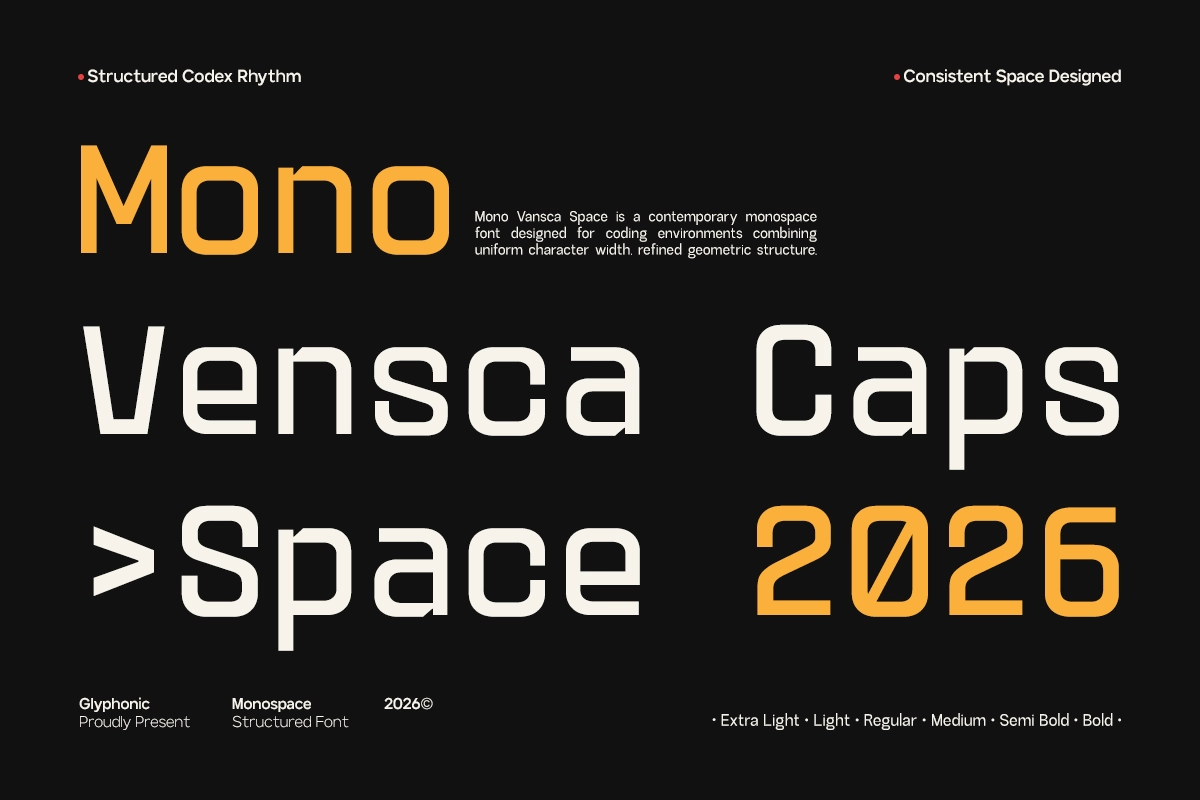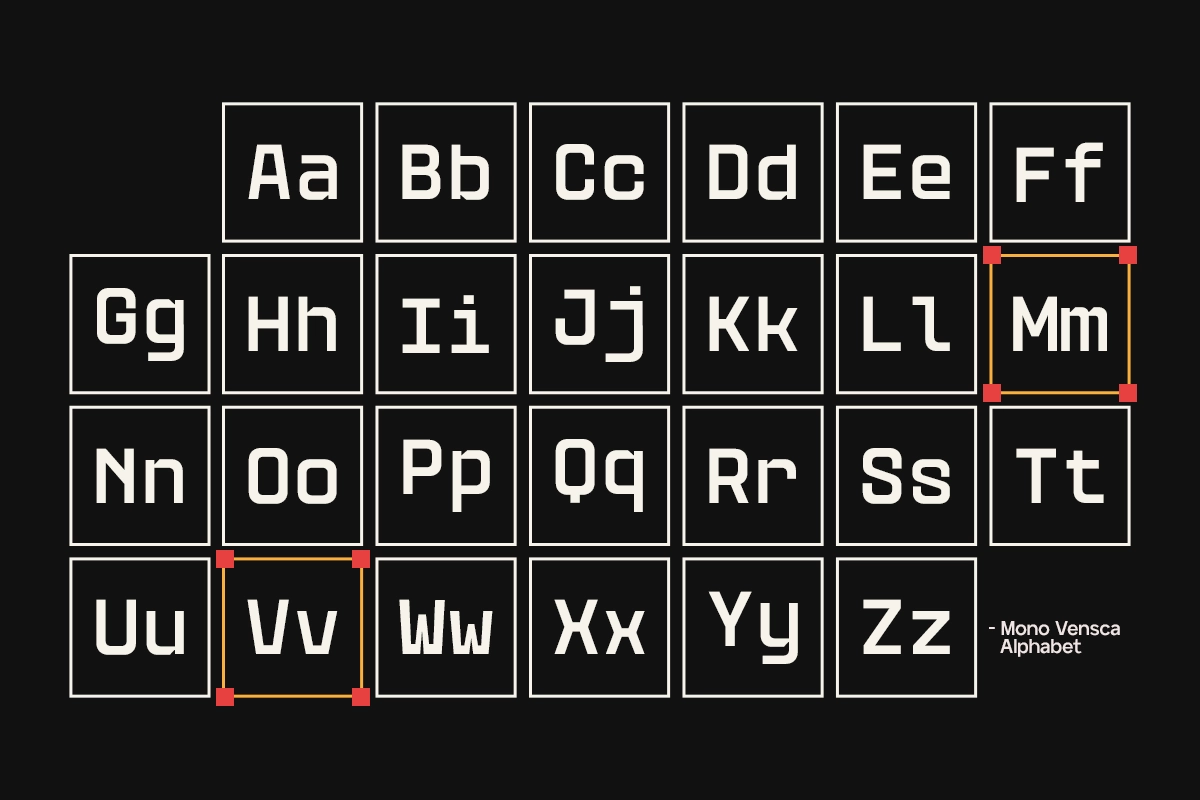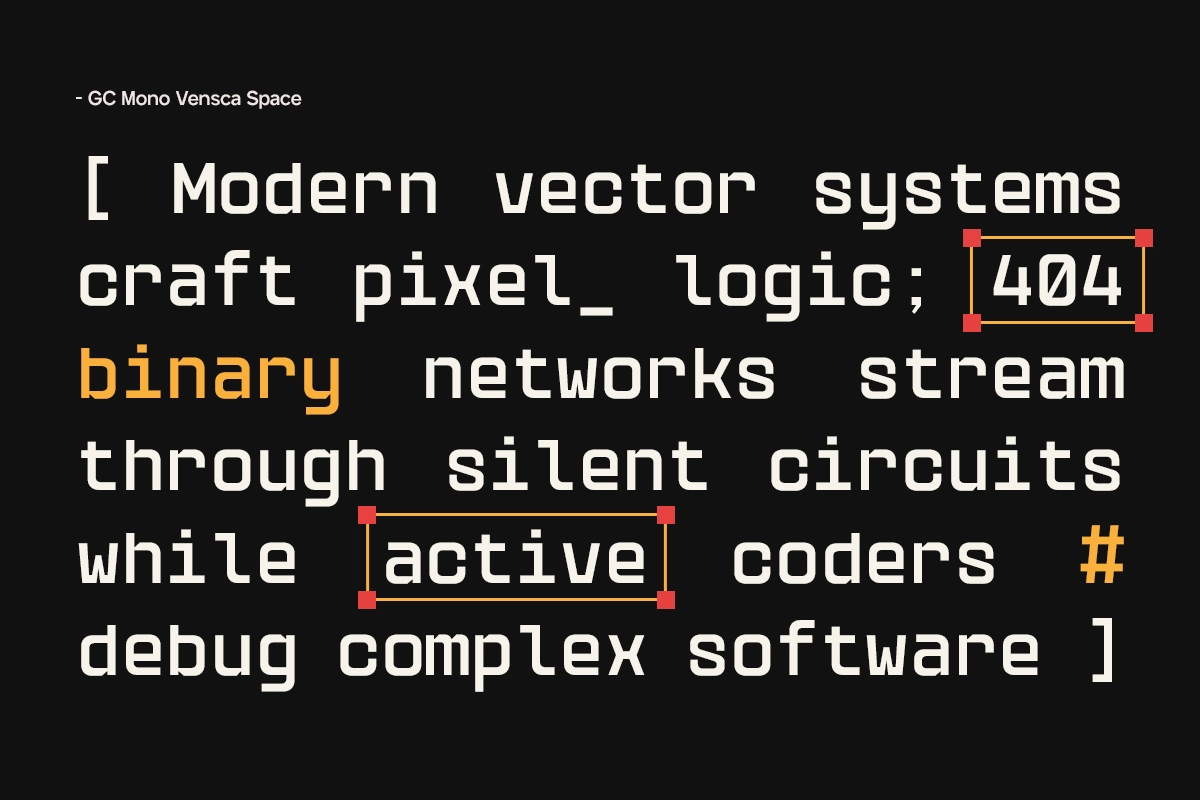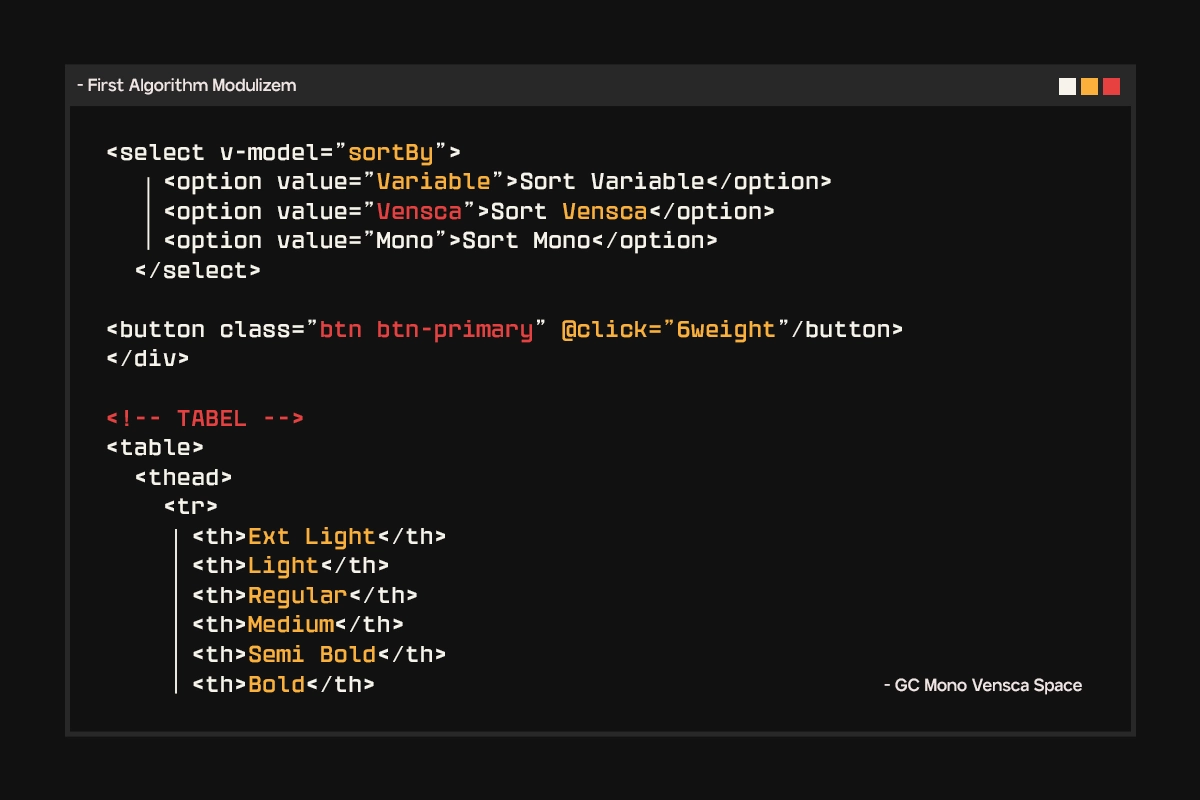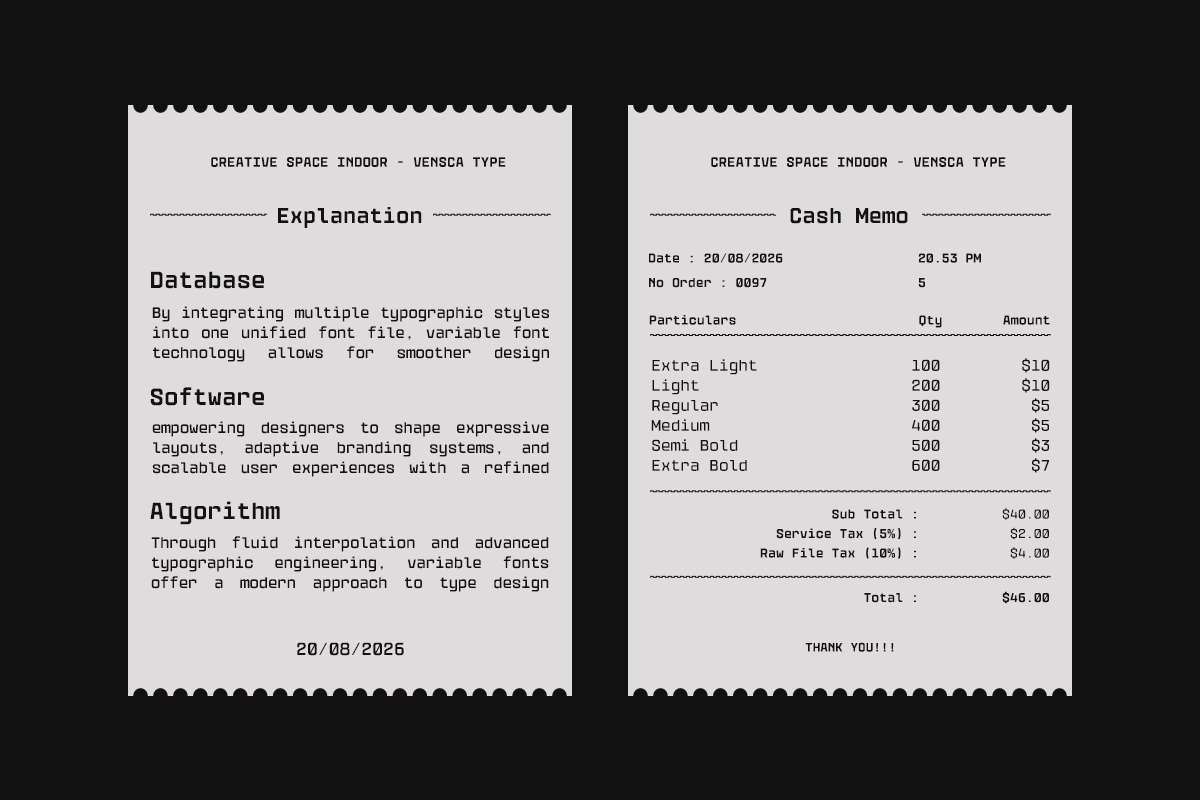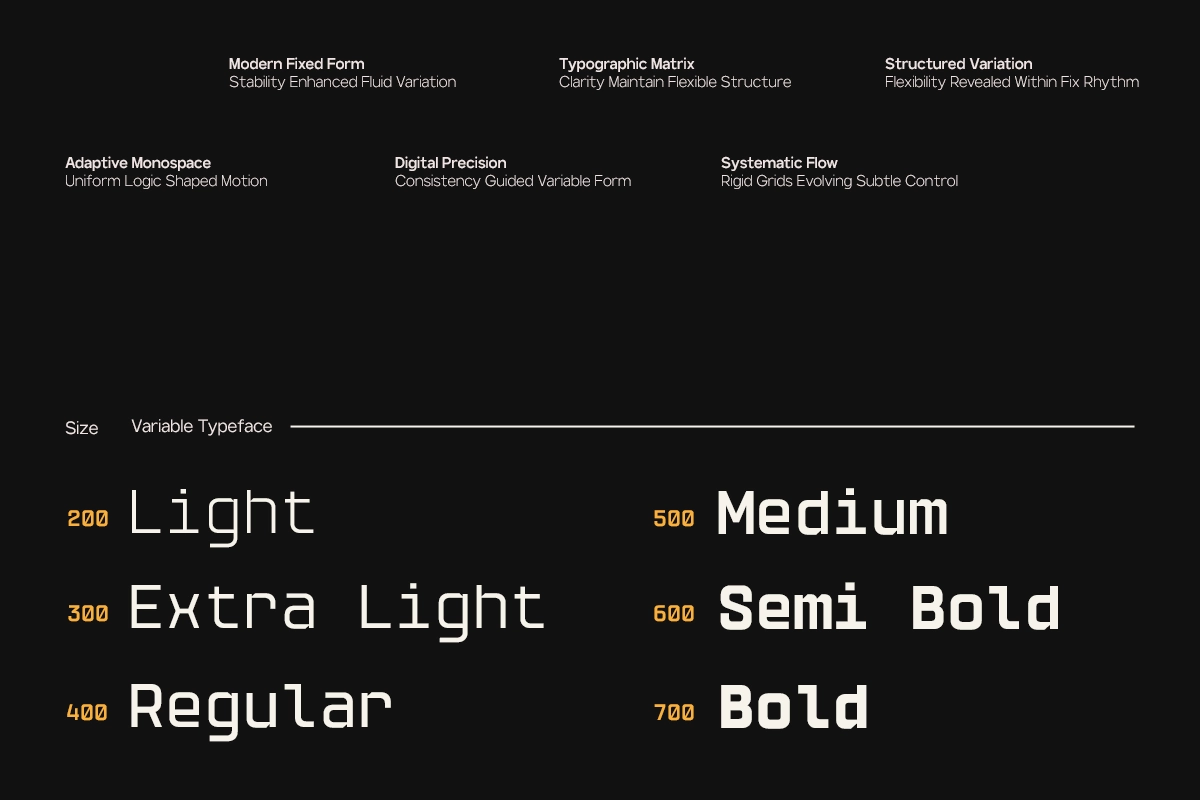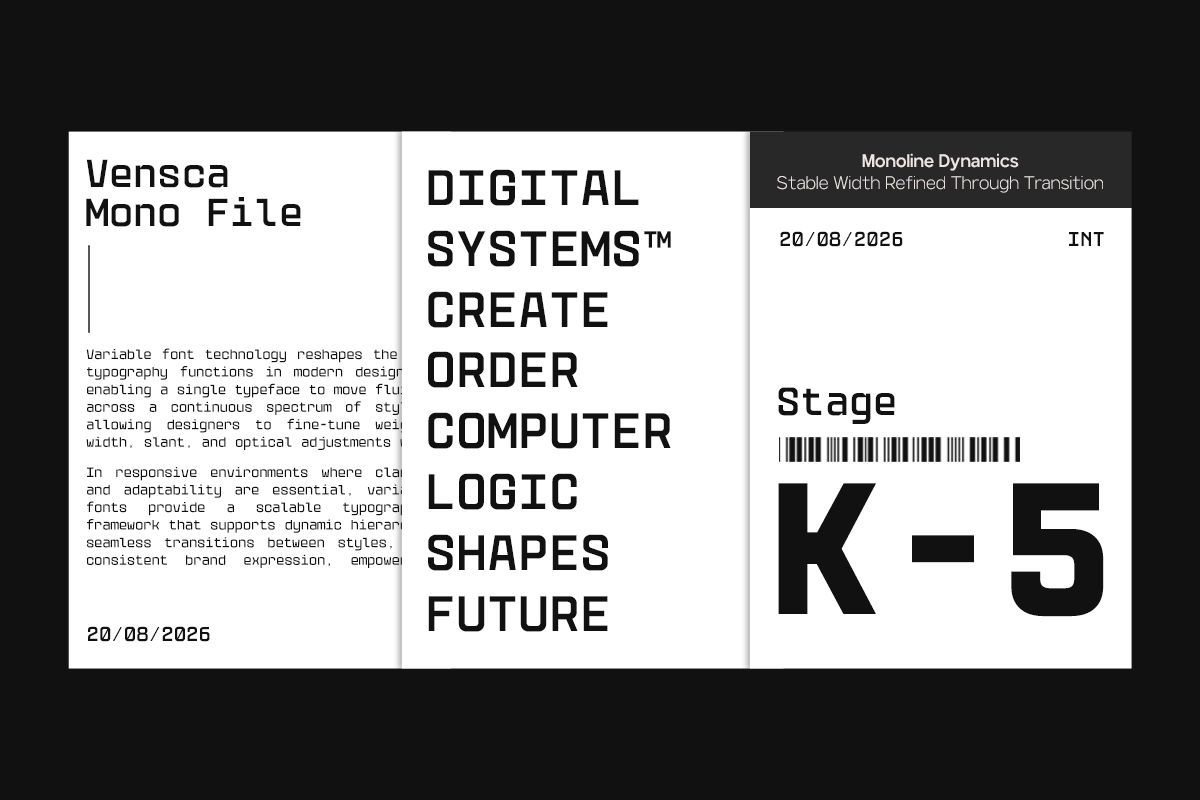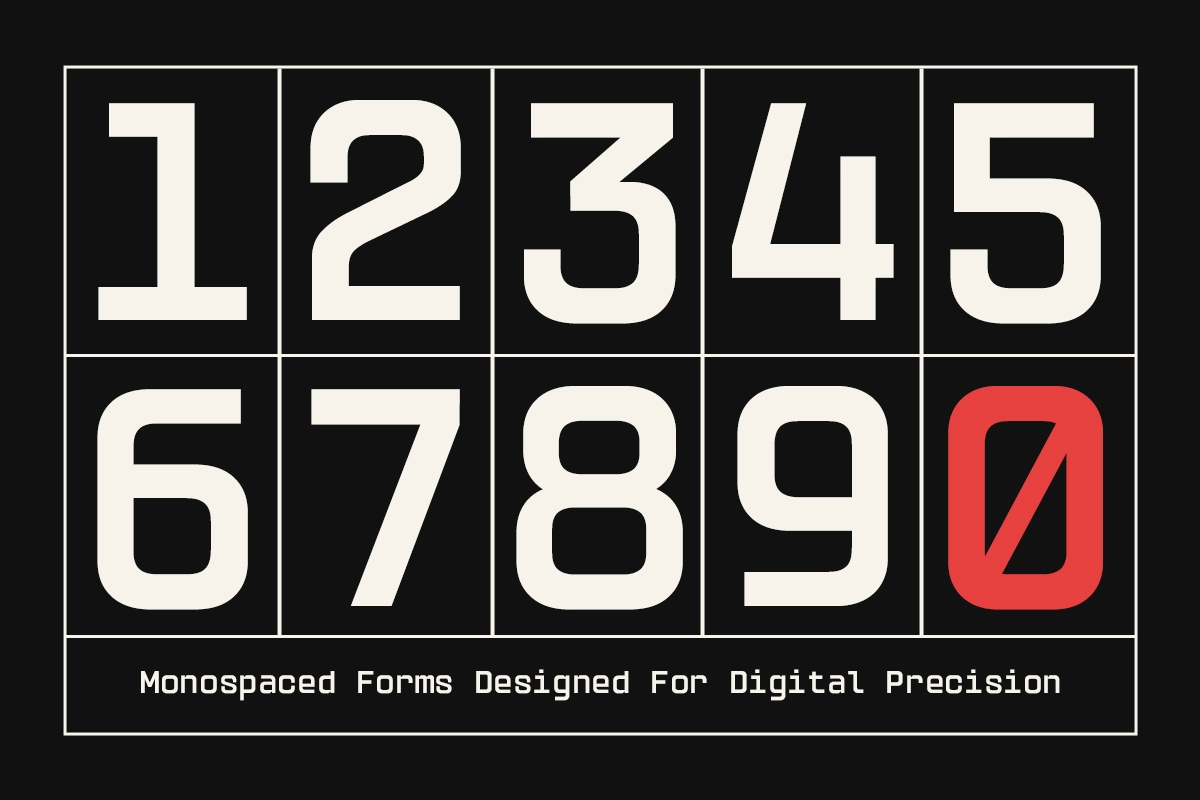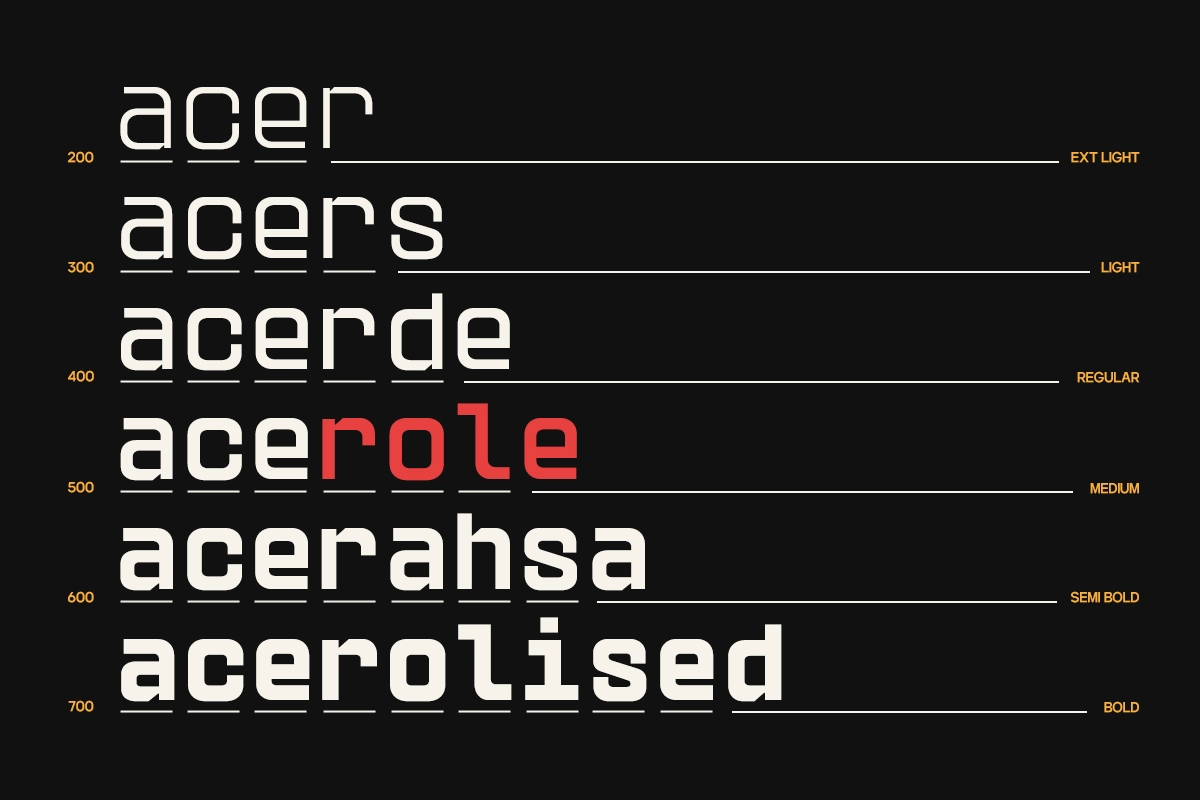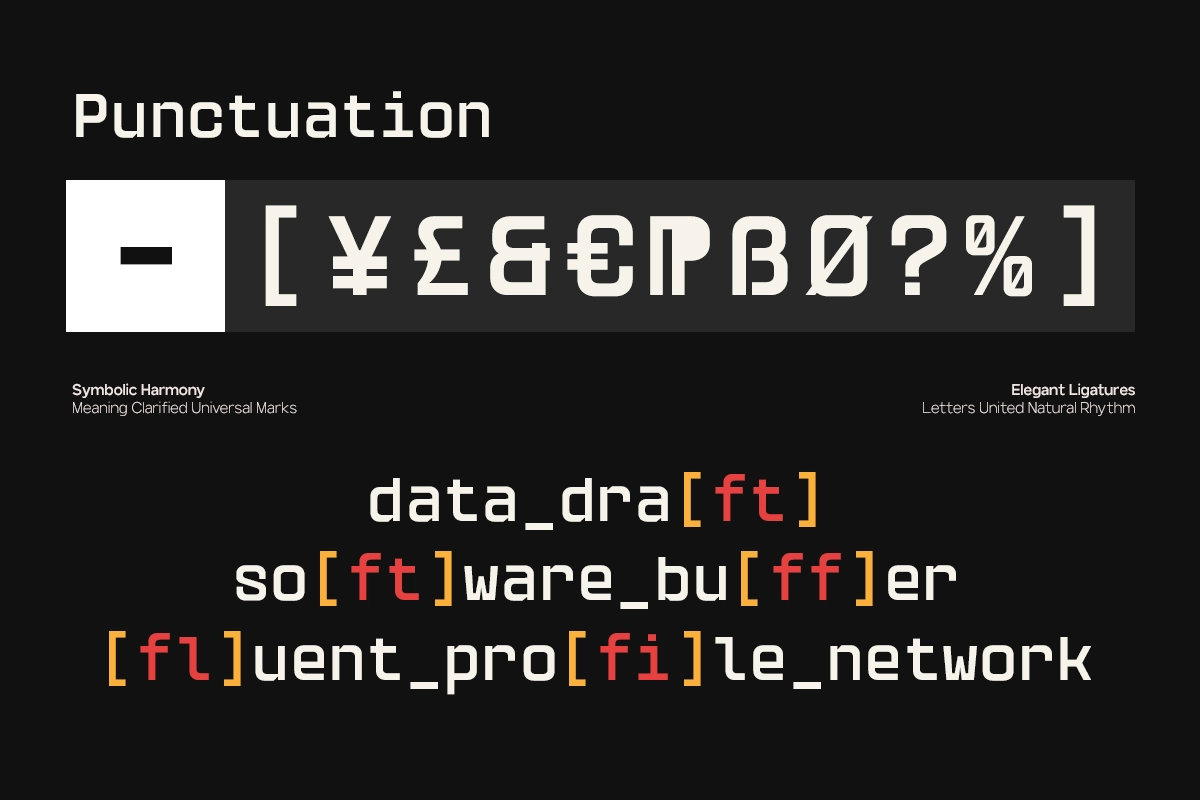
GC Vensca Mono - Modern Monospace Font
GC Vensca Mono - Modern Monospace Font is a modern monospace typeface built on a strict grid system , delivering clarity, consistency, and a distinctly technical aesthetic. Its uniform spacing and structured forms create a clean, controlled rhythm, making it an excellent choice for interfaces, coding environments, and contemporary editorial layouts where alignment and precision are key.
Designed as a variable font, Vensca Mono offers flexible weight adjustments that allow you to fine-tune hierarchy across different projects. From minimal tech branding to data-driven visuals and modern typography systems, it maintains strong legibility while adding a refined, futuristic character to your compositions.
- Variable Font
- Monospaced Construction
- Uppercase & Lowercase Letters
- Clean Modern Detailing